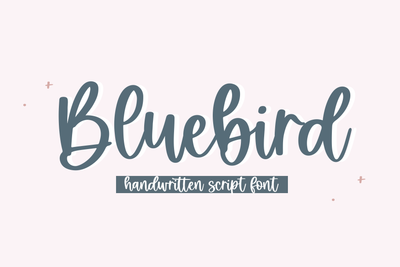
Bluebird - Handwritten Script Font
Bluebird is a handwritten script font.
This font is perfect for all of your crafting projects, home decor, wedding decor, branding, logos, svg designs and more!